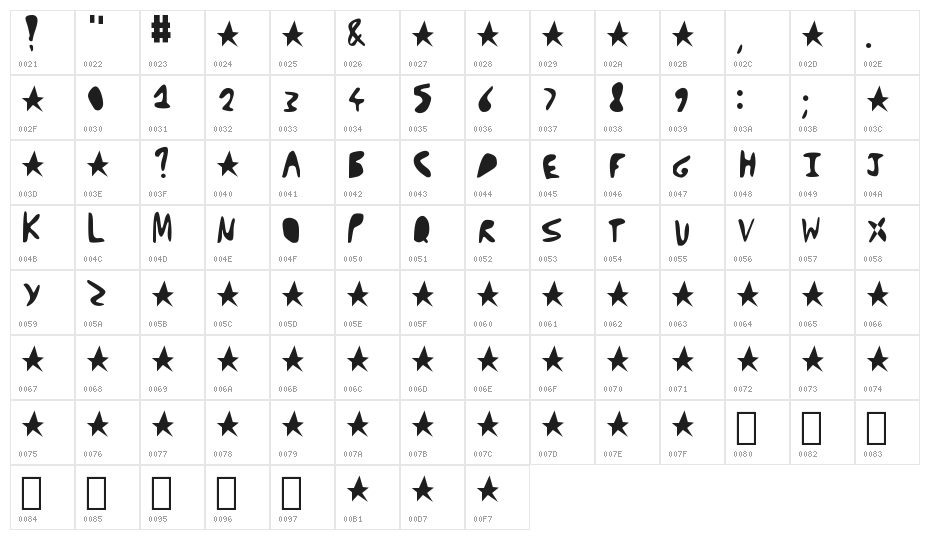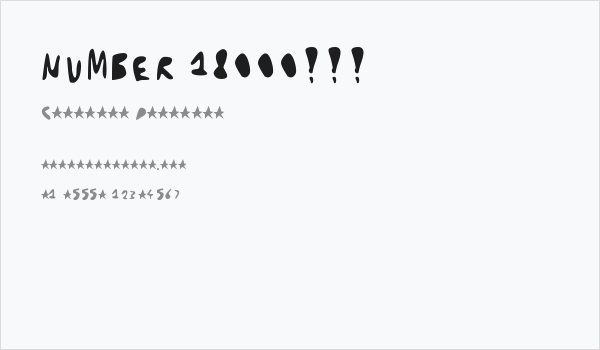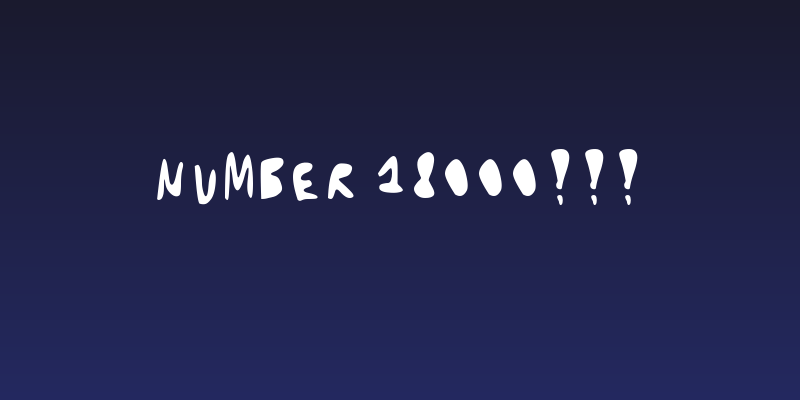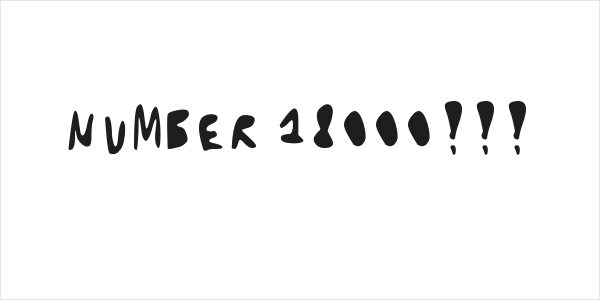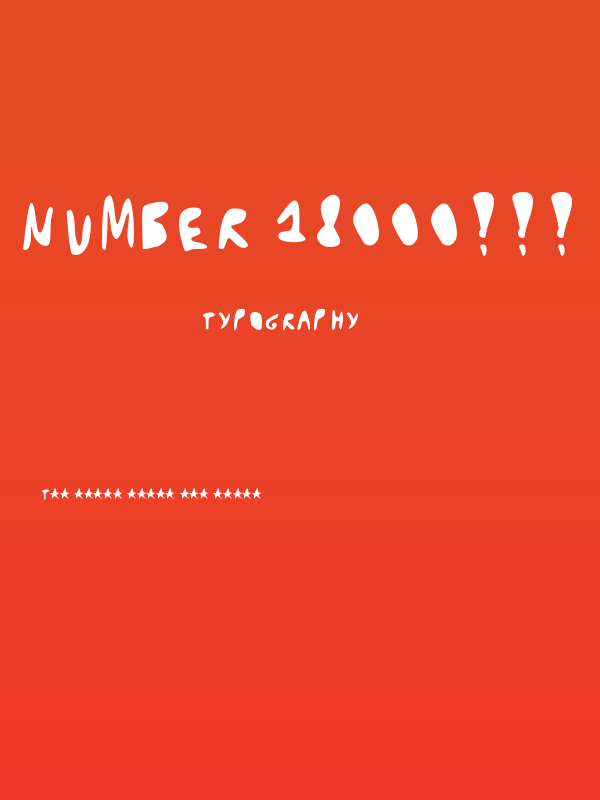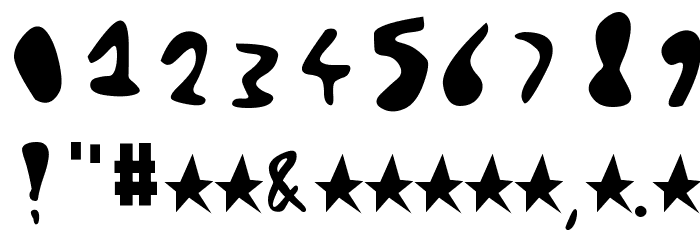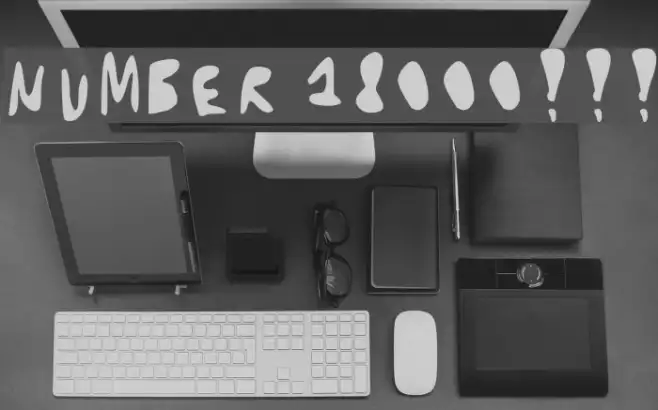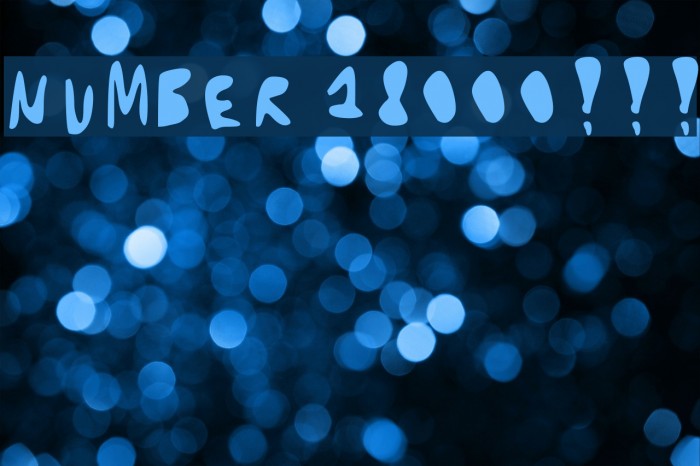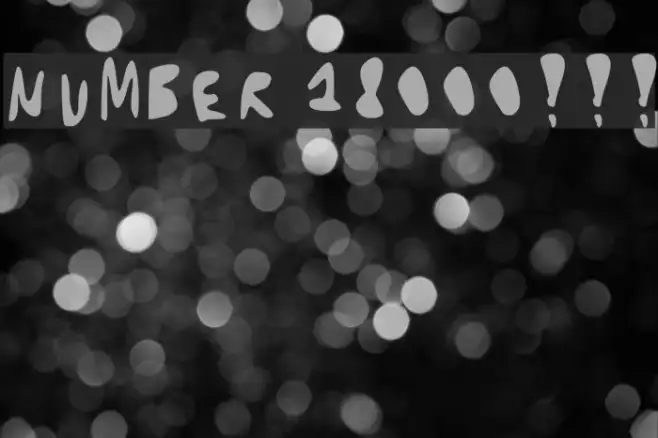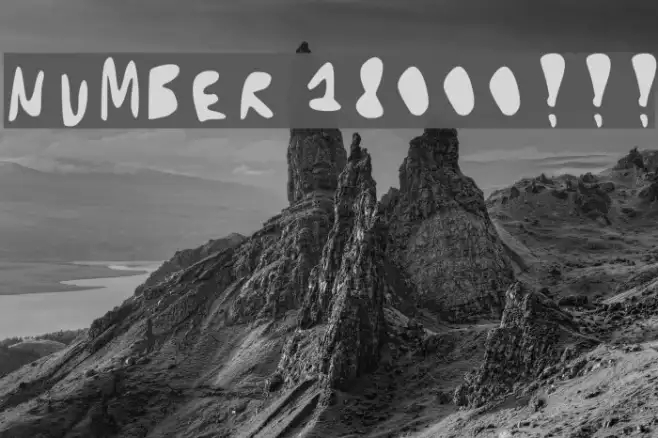
NUMBER 18000!!! Font
NUMBER 18000!!! Description
This font features a bold and playful style with a hand-drawn appearance. The letters have a casual, almost whimsical feel, with irregular shapes and varying thicknesses that give it a unique character. The uppercase and lowercase letters maintain a consistent style, while the numbers and special characters complement the overall design. The font's boldness and distinctive look make it stand out, ideal for creative and informal projects. Its playful nature is emphasized by the uneven lines and organic forms, making it suitable for designs that require a personal touch.
| Overall Style | Playful, Casual |
| Proposed Projects | Perfect for children's books, playful branding, casual invitations, and creative posters. |